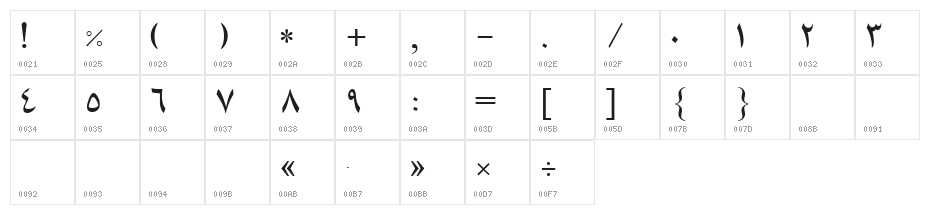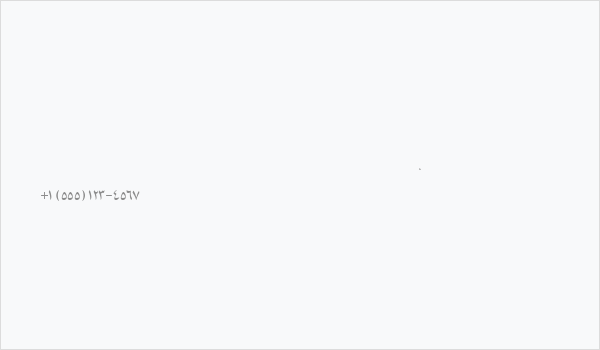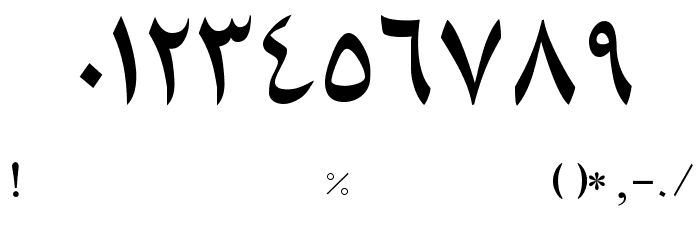
Moallaa II Font
Moallaa II Description
This font features a unique and artistic style, characterized by its flowing, calligraphic strokes that give it a distinct handwritten appearance. The characters are elegantly curved, with varying thickness that adds a dynamic and lively feel. The numbers and special characters maintain the same artistic flair, ensuring consistency across all elements. This font is ideal for projects that require a touch of creativity and elegance, such as invitations, artistic posters, or branding materials that aim to stand out with a personalized touch.
| Use Case | Headlines, Artistic projects, Invitations |
| Proposed Projects | Ideal for invitations, artistic posters, branding materials, and creative projects. |